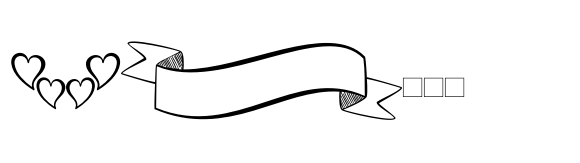
Hello Bestlady Duo
by Rastype Studio
The Hello Bestlady Duo Font Family was designed by Muhammad Taufik and published by Rastype Studio. Hello Bestlady Duo contains 3 styles and family package options. More about this family
Hello Bestlady Duo is a romantic and sweet calligraphy typeface with characters that dance along the baseline. It has a casual and yet elegant touch. It can be used for various purposes such as logos, wedding invitations, headings, t-shirts, letterhead, signage, lables, news, posters, badges etc.
The fonts include OpenType features with stylistic alternates, ligatures and multiple language support.